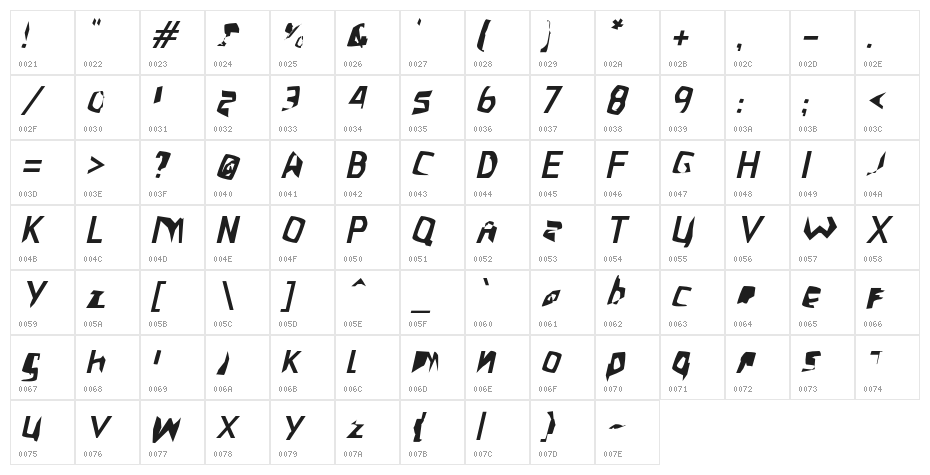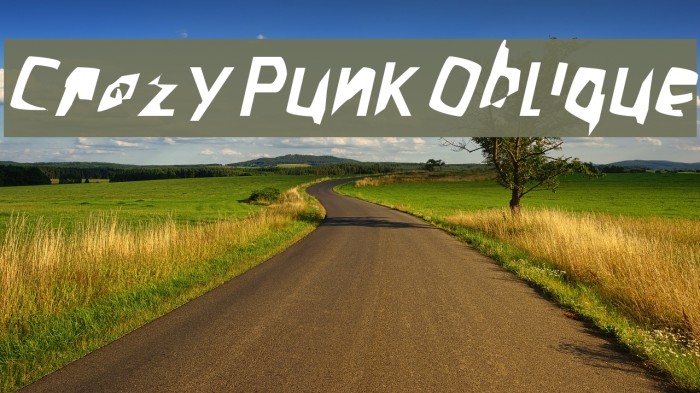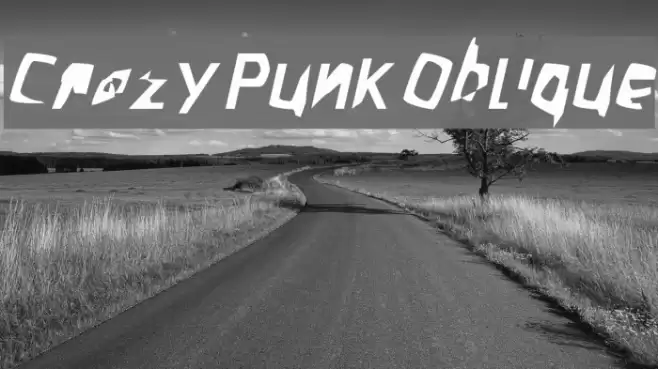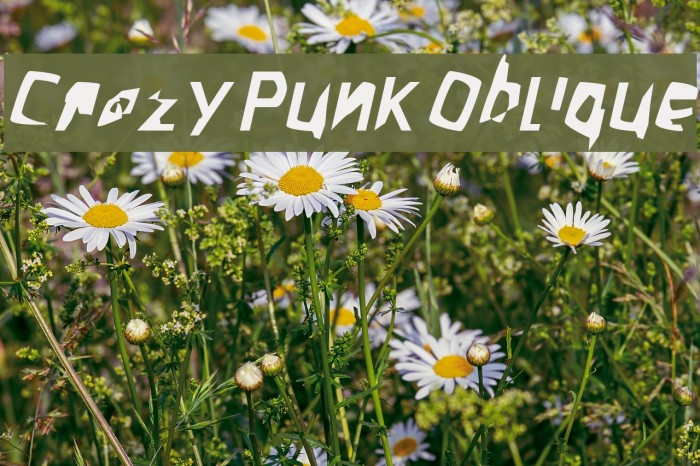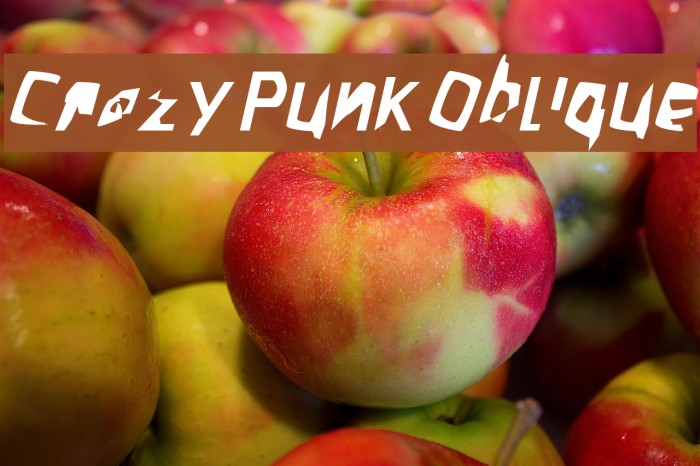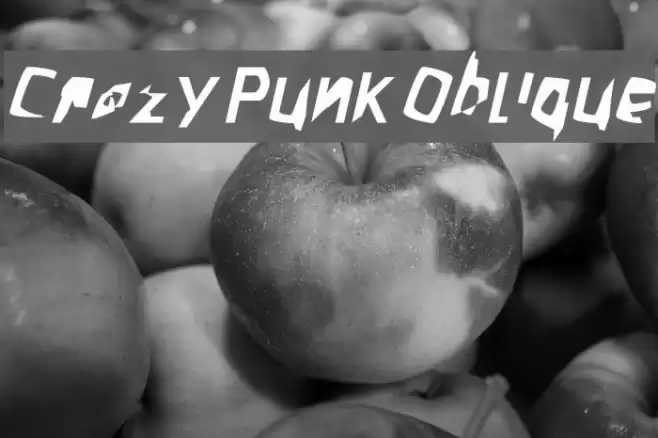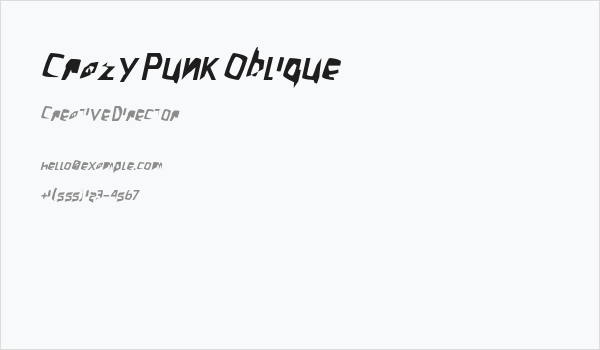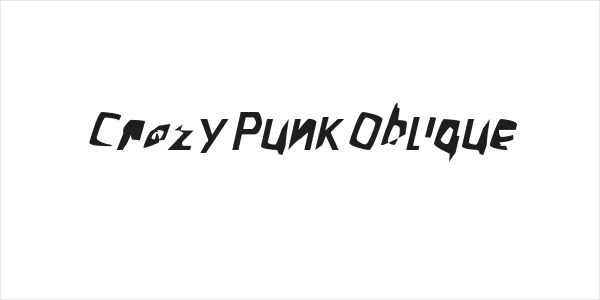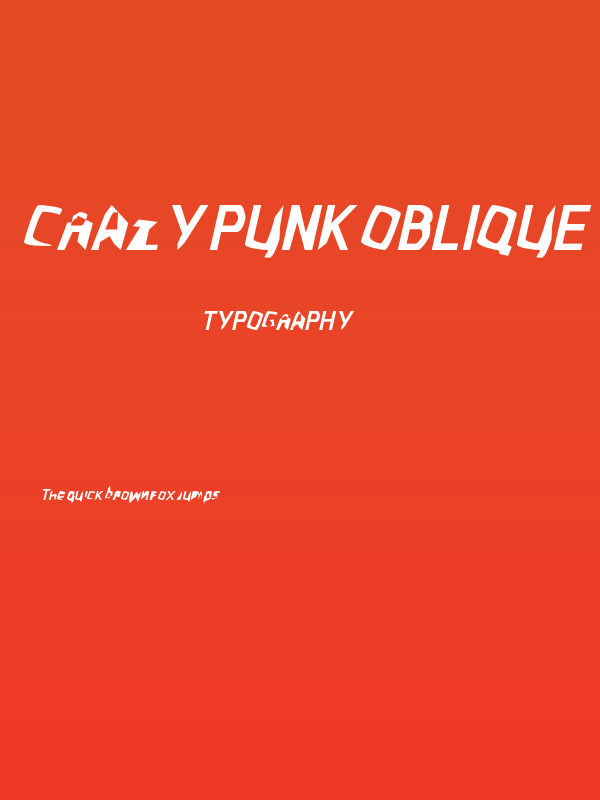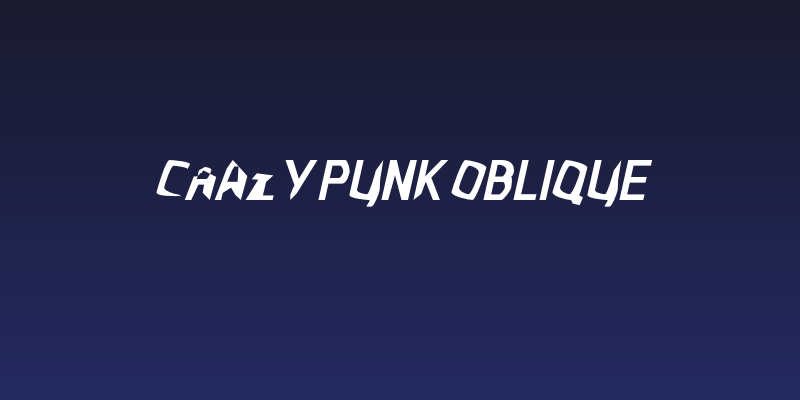
Crazy Punk Oblique Font
Crazy Punk Oblique Description
This font exudes a rebellious and edgy vibe, characterized by its sharp, angular lines and dynamic, slanted orientation. The letters appear to be in motion, giving a sense of urgency and energy. The uppercase and lowercase letters maintain a consistent style, with jagged edges and irregular shapes that create a chaotic yet cohesive look. Numbers and special characters follow the same design principles, ensuring a uniform appearance across all glyphs. The boldness of the strokes adds to the font's striking presence, making it ideal for projects that require a strong visual impact.
| Overall Style | Modern, Punk |
| Proposed Projects | Ideal for music album covers, event posters, streetwear branding, or any project seeking a punk or alternative aesthetic. |